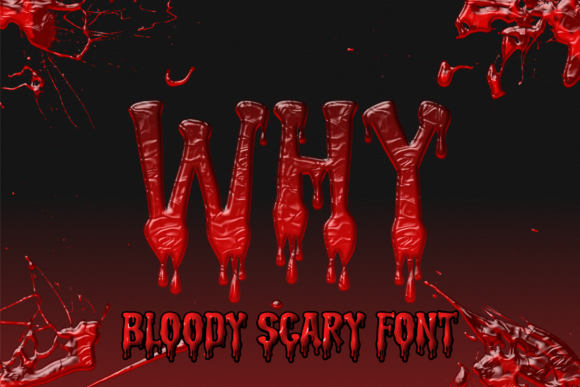
Meet "Why," the Spooktacular Font That Will Hauntingly Beautify Your Designs.
Prepare to be spellbound by the Why font, a stunning decorative typeface that conjures an atmosphere of intrigue and mystery. Whether you're a design wizard or a creative conjurer, this font is your secret weapon to cast a spellbinding charm over your projects.
With its eerie yet captivating curves, Why instantly transports you to a world of shadows and secrets. Its intricate details and spine-tingling glyphs are a testament to Creative Fabrica Fonts' masterful artistry, ensuring your designs stand out from the ordinary and embrace the extraordinary.
Step into the realm of the macabre and unleash your creativity. Let Why be your guide as you craft hauntingly beautiful invitations for your Halloween soirées, conjure up spine-chilling posters for your horror-themed events, or create spellbinding logos and branding that exude an aura of mystery.
Dive into the Why font's versatility and witness its transformative power. From chilling book covers that send shivers down the spine to captivating social media posts that ignite curiosity, Why adapts seamlessly to your creative vision. Let your imagination run wild and let Why be your dark muse.
Embrace the darkness and unlock the full potential of your creativity. The Why font is the key to unlocking a world of captivating designs that will leave your audience spellbound. Dare to be different, dare to be bold, and let Why be your beacon in the realm of captivating typography.